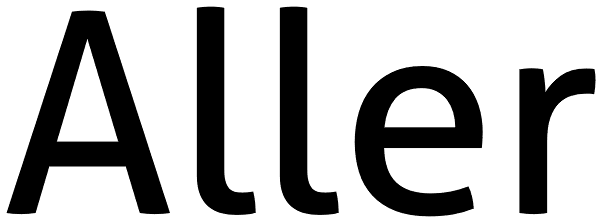
Aller Typo
The Aller font family is an exceptional design that satisfies a wide range of uses - from a very personal wedding invitation to corporate mass-communication. Its tone of voice is soft and warm, with the softness emphasized even further by the...